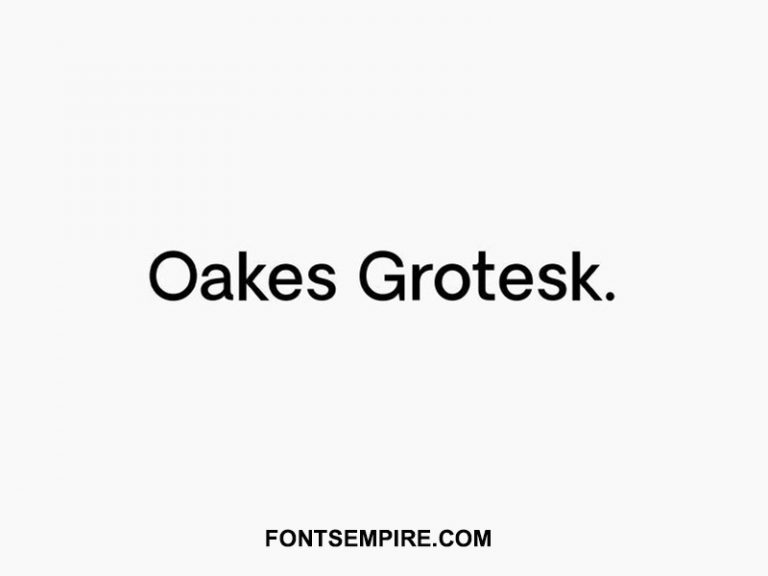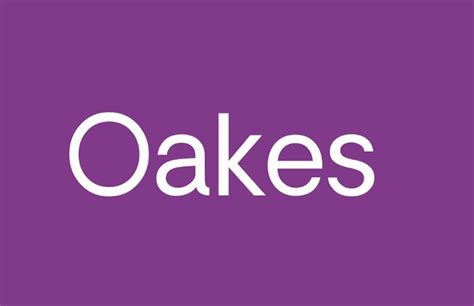
Oakes grotesk is not just a font, it’s a work of art. Oakes grotesk regular is the perfect font for all your fun designs. Download oakes font from here by a single click that includes free fonts, google fonts, orkney font, sans serif fonts, & clean fonts. Oakes font family series mainly provide medium and other font styles.
Oakes Regular Font Free - Oakes grotesk regular is the perfect font for all your fun designs. Discover the free oakes grotesk font at free font download ! See how to download oakes grotesk regular for free! Oakes font family series mainly provide medium and other font styles. Installable on pc, mac, linux, ios, and android platforms.
Oakes Regular Font Free - Its precise and meticulous design, along with its flawless execution, showcases samuel. Discover the free oakes grotesk font at free font download ! Installable on pc, mac, linux, ios, and android platforms. See how to download oakes grotesk regular for free! This font is free for personal and commercial use.
Oakes Regular Font Free - Oakes font family series mainly provide medium and other font styles. Its precise and meticulous design, along with its flawless execution, showcases samuel. Installable on pc, mac, linux, ios, and android platforms. Download oakes font from here by a single click that includes free fonts, google fonts, orkney font, sans serif fonts, & clean fonts. See how to download oakes.
Oakes Regular Font Free - Oakes grotesk is not just a font, it’s a work of art. Installable on pc, mac, linux, ios, and android platforms. Its precise and meticulous design, along with its flawless execution, showcases samuel. Download oakes font from here by a single click that includes free fonts, google fonts, orkney font, sans serif fonts, & clean fonts. This font is free.